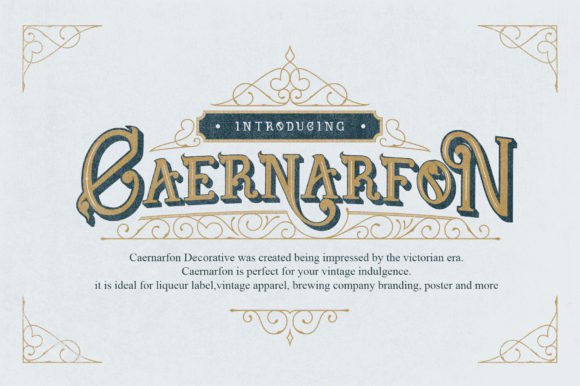
Introducing Caernarfon Font: A Timeless Victorian Serif Display Font
Are you a designer or crafter looking for a font that exudes vintage charm and sophistication? Look no further than Caernarfon Font, a traditional Victorian serif display font family that is sure to elevate your designs. In this article, we’ll take a closer look at Caernarfon Font, its features, and the various ways you can use it to create stunning designs.
What is Caernarfon Font?
Caernarfon Font is a traditional Victorian serif display font family that consists of four fonts. These fonts are carefully crafted to be layered together to create detailed vintage typography. The result is a font that is both elegant and eye-catching, perfect for a wide range of design applications.
Key Features of Caernarfon Font
- Traditional Victorian serif design: Caernarfon Font features a classic Victorian serif design that is reminiscent of traditional printing techniques.
- Four-font family: The font family includes four fonts that can be layered together to create intricate and detailed designs.
- Vintage charm: Caernarfon Font is designed to evoke a sense of nostalgia and vintage charm, making it perfect for designs that require a touch of classic elegance.
- Highly versatile: This font is suitable for a wide range of design applications, from vintage apparel and liquor labels to branding, posters, and more.
Uses for Caernarfon Font
Caernarfon Font is an incredibly versatile font that can be used in a variety of design applications. Here are some ideas to get you started:
- Vintage apparel: Create stunning vintage-inspired apparel designs, such as t-shirts, hoodies, and hats, using Caernarfon Font.
- Liquor labels: Design elegant and sophisticated labels for wine, beer, and spirits using this font.
- Branding: Use Caernarfon Font to create a unique and memorable brand identity for your business or product.
- Posters: Create eye-catching posters for events, promotions, or advertising campaigns using this font.
- Stationery: Design beautiful and elegant stationery, such as wedding invitations, greeting cards, and letterheads, using Caernarfon Font.
Tips for Using Caernarfon Font
To get the most out of Caernarfon Font, here are some tips to keep in mind:
- Experiment with layering: Don’t be afraid to experiment with layering the different fonts to create unique and intricate designs.
- Adjust font sizes: Play around with different font sizes to create visual interest and hierarchy in your designs.
- Pair with other fonts: Consider pairing Caernarfon Font with other fonts to create a unique and contrasting look.
Caernarfon Font is a timeless and elegant Victorian serif display font family that is perfect for designers and crafters looking to add a touch of vintage charm to their designs. With its four-font family and highly versatile design, Caernarfon Font is suitable for a wide range of design applications. Whether you’re creating vintage apparel, liquor labels, branding, posters, or stationery, this font is sure to elevate your designs and leave a lasting impression.